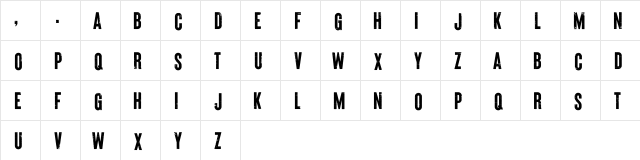
Brixton_Wood_PERSONAL_USE_ONLY Vector
Design Context for Brixton_Wood_PERSONAL_USE_ONLY Typeface
Brixton_Wood_PERSONAL_USE_ONLY taps into classic Western woodtype traditions — bold, characterful, and impossible to ignore.
A natural fit for craft spirits, ranch branding, rodeo events, and Americana-inspired design work.
Font Pairing: Combine Brixton_Wood_PERSONAL_USE_ONLY with a simple slab or neutral sans — period-accurate companions reinforce the vintage feel without competing for attention.
Pro Tip: Use Brixton_Wood_PERSONAL_USE_ONLY for short, impactful bursts of text — it shines in poster headlines and product names rather than extended copy.